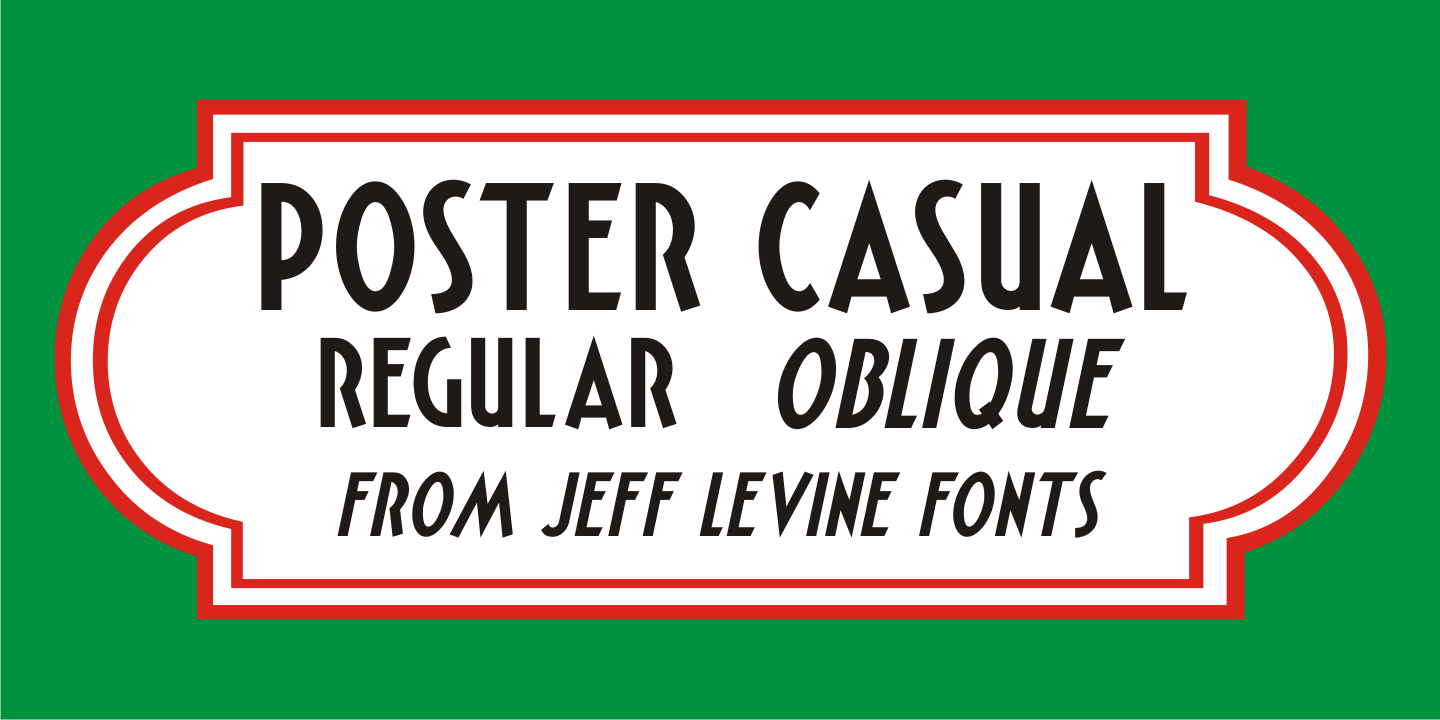
The Poster Casual JNL Font Free Download is a wonderfully warm and approachable typeface, making it an excellent choice for designs that aim to convey a friendly, inviting, and slightly retro charm. This versatile font is perfectly suited for community event posters, school notices, local business signage, casual restaurant menus, vintage-inspired advertising, and handmade craft fair promotions. Imagine it adding a welcoming touch to a bake sale flyer, providing clear and friendly typography for a neighborhood picnic announcement, or lending an authentic, timeless feel to a small shop's window display. Its clear, unembellished forms and straightforward readability ensure your message is delivered with sincerity and an undeniable sense of genuine appeal.
What makes Poster Casual JNL Font truly exciting is its ability to instantly infuse designs with a feeling of honest simplicity and gentle nostalgia. It's not just a basic sans-serif; it embodies an organic warmth and a friendly character that makes it incredibly appealing. The slightly informal shapes and smooth curves give it an authentic, approachable feel, as if lovingly hand-drawn. Designers will appreciate how easily it brings an unpretentious, comforting touch to any project, making it ideal for designs that need to feel friendly, engaging, and visually inspiring with a touch of classic American charm.
The Poster Casual JNL Font family typically focuses on its singular, impactful style, as its strength lies in its inherent casual and utilitarian aesthetic. While you might primarily find a Regular option, its power comes from its unique visual effect rather than a broad range of weights. Some versions might offer slightly varied weights or distressed alternatives to enhance its authentic, aged appearance. These focused design choices ensure that the Poster Casual JNL Font Free Download provides ample creative opportunities to craft truly authentic, clear, and visually striking designs that resonate with a sense of straightforward purpose and inviting simplicity.